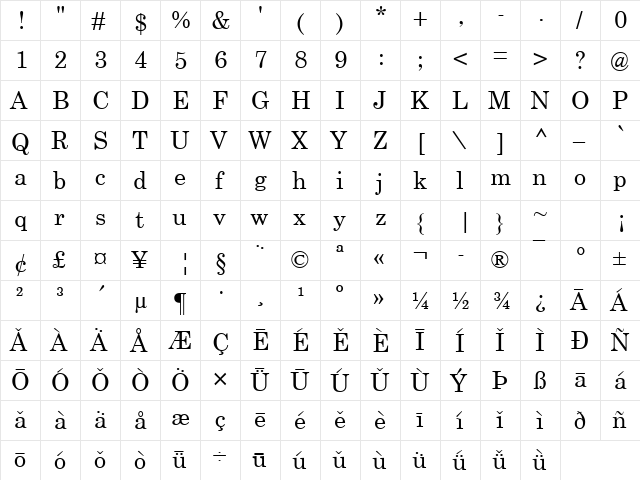
Estremo Oriente Regular Font Preview
Estremo Oriente Regular
Design Context for Estremo Oriente Typeface
Estremo Oriente takes a measured approach to typography — its balanced proportions and neutral character make it a reliable workhorse for both digital and print work.